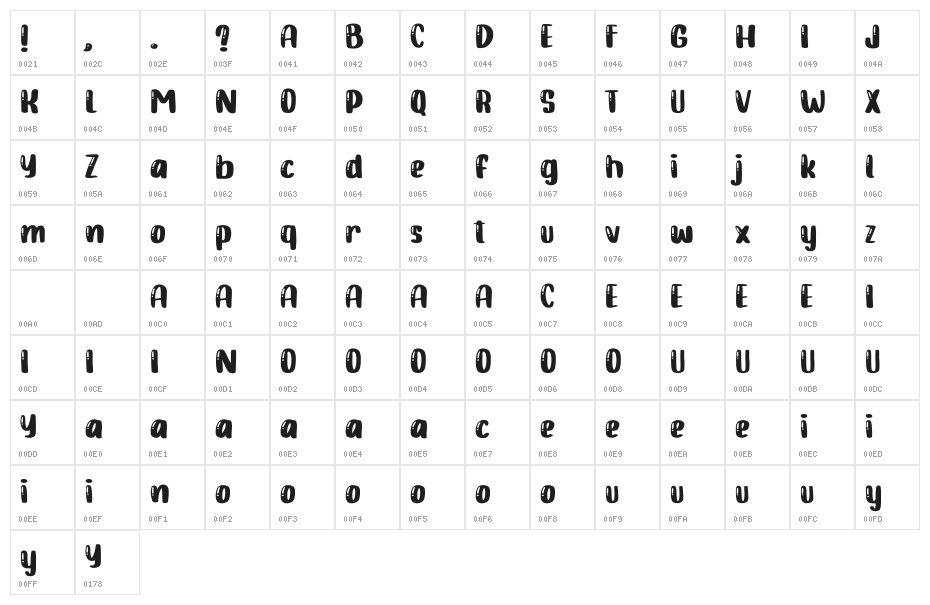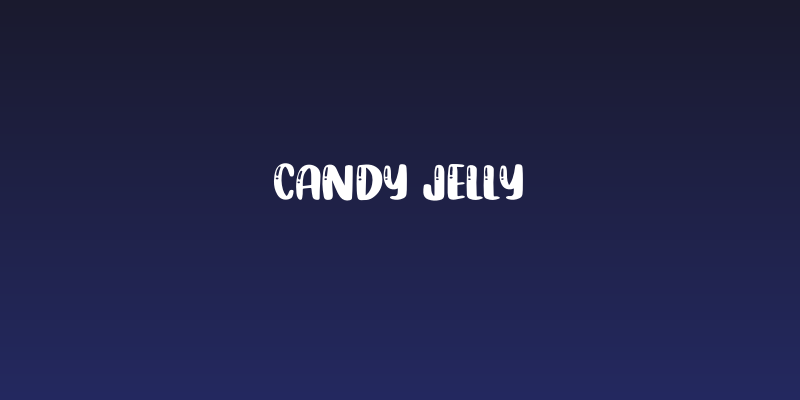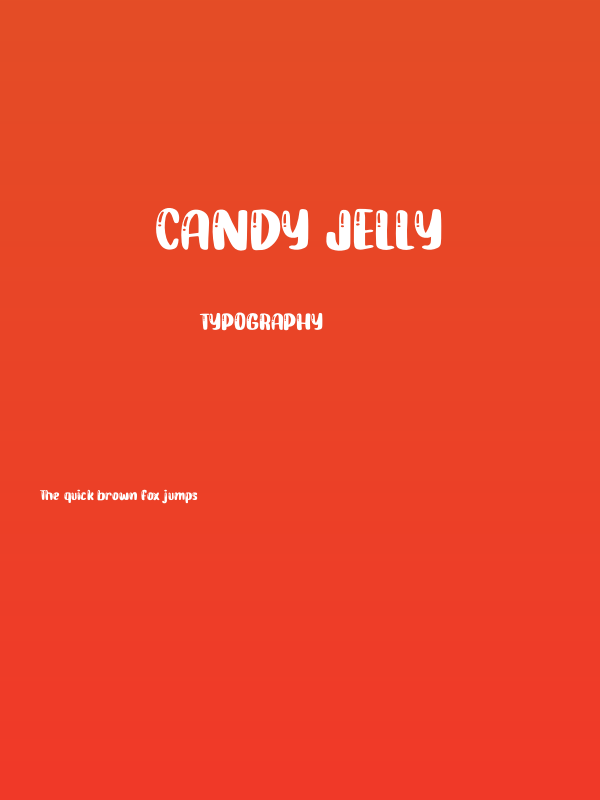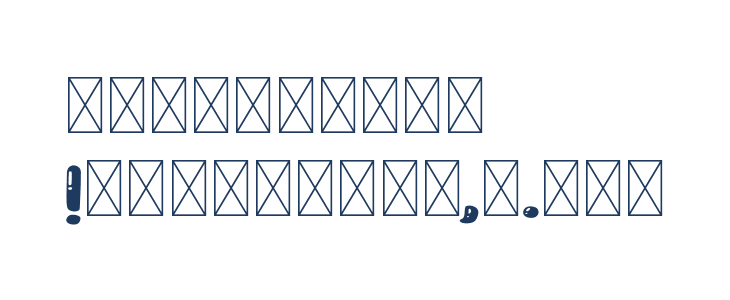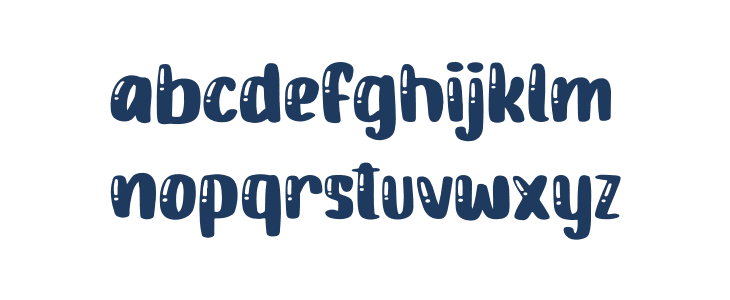
Candy Jelly Font
Candy Jelly Description
This playful and whimsical font features bold, rounded characters with a bubbly appearance. The letters have a thick, uniform stroke with small, playful cutouts that add a sense of fun and creativity. The uppercase and lowercase letters maintain a consistent style, with a slightly exaggerated, cartoonish flair. The overall look is reminiscent of candy or jelly, making it ideal for projects that require a lighthearted and cheerful touch. The font's design is both eye-catching and approachable, perfect for engaging a younger audience or adding a playful element to any design.
| Proposed Projects | Ideal for children's book covers, playful branding, party invitations, and fun social media graphics. |